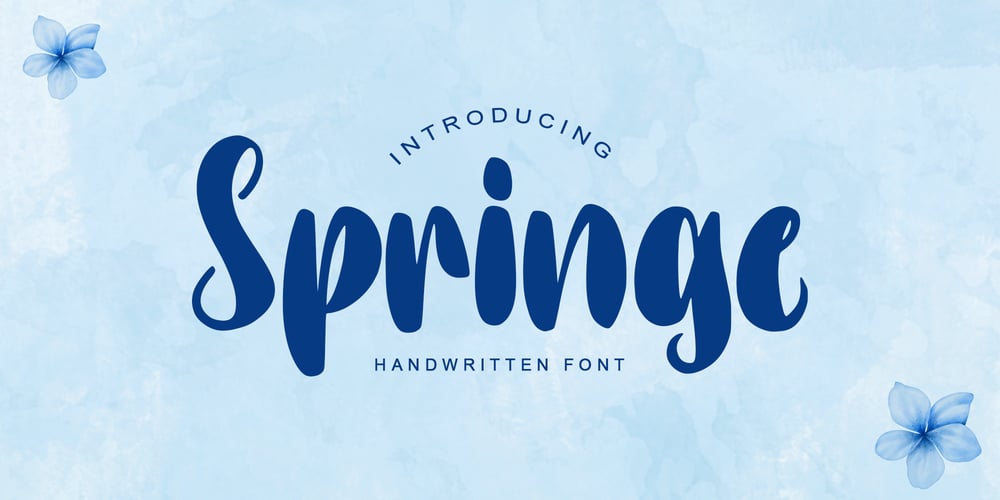
Springe
Springe font
Springe Font Family was designed by Alif Ryan Zulfikar and published by Sakha Design. Springe contains 2 styles and family package options. Springe is a refreshing handwritten font inspired by the beauty of spring. Its graceful curves and natural flow make it perfect for invitations, packaging, and branding, adding a vibrant and elegant touch to creative projects.